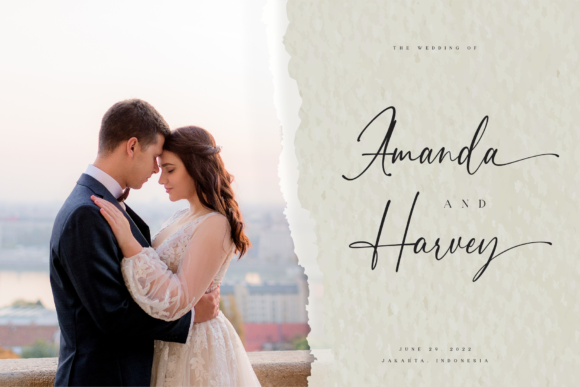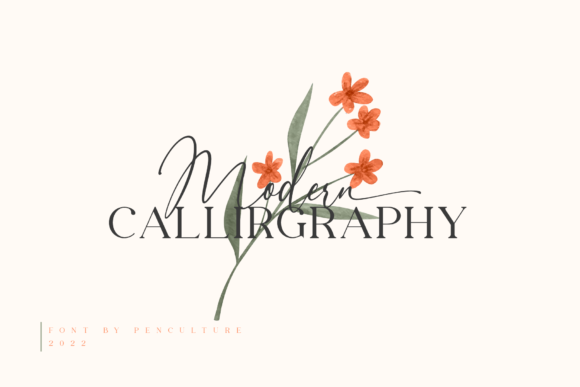
Andaman Font
db-ku.com - Script & Handwritten -- Andaman is a carefully crafted modern calligraphy font, which comes with ligature and unique swashes. It is suitable for branding, logos, fashion projects, posters, magazines and many more. This font is PUA encoded which means you can access all of the glyphs and swashes with ease!